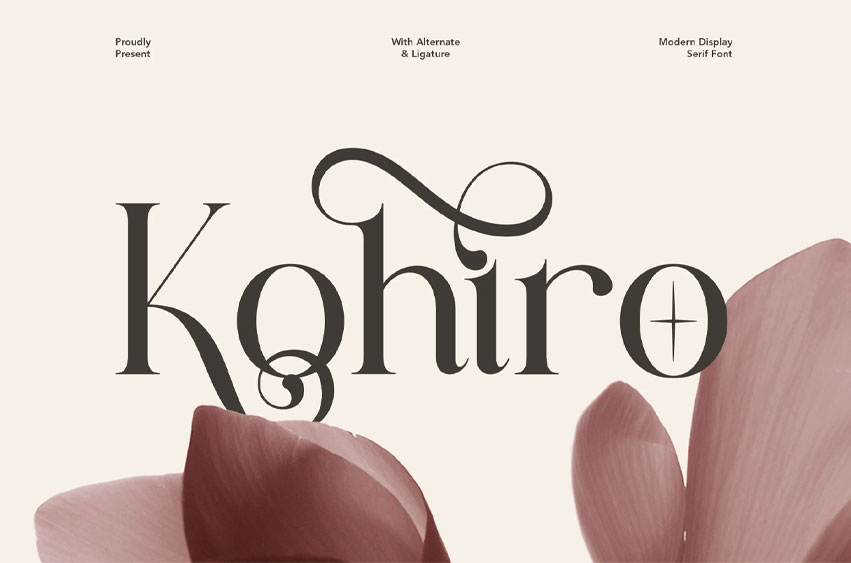
Kohiro Font is a premium display typeface crafted for projects that demand poise, luxury, and visual authority. With clean, graceful lines and just the right balance of modern subtlety and timeless class, Kohiro is more than just a font — it’s a statement.
• Some Alternates and Ligatures
Why Choose Sophisticated Kohiro?
In a sea of generic typefaces, Kohiro stands out with its unique blend of restraint and character. It brings reliability for body text (in the heavier weights) and showmanship for headers (in lighter or stylized versions). Whether you’re designing a brand identity, crafting a luxe magazine spread, or elevating a product label, Kohiro adapts—and it impresses. Designers and brands looking for a typeface that whispers sophistication (rather than shouts) will find Kohiro to be an indispensable tool in their typographic arsenal.
Usage ideas
Logo & branding, fashion lookbooks, premium packaging, wedding stationery, editorial layouts, social media graphics, product labels, signage, luxury web headers, and more.